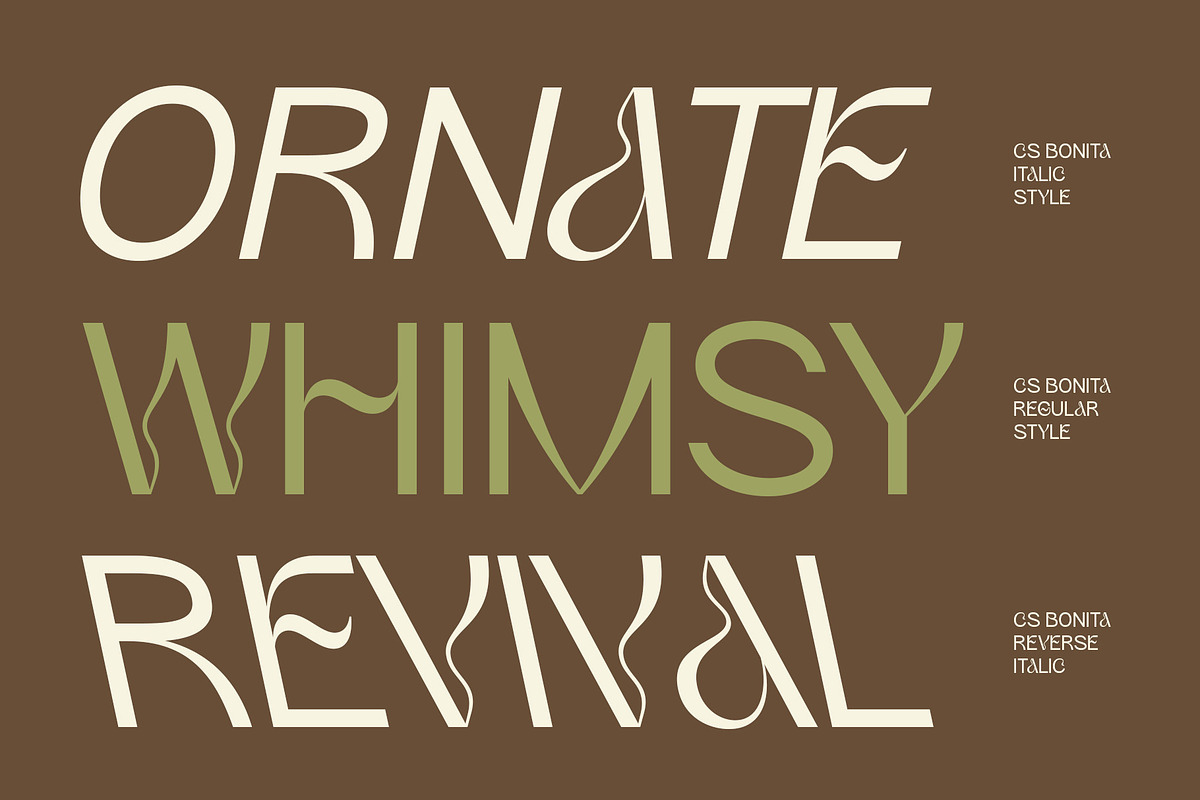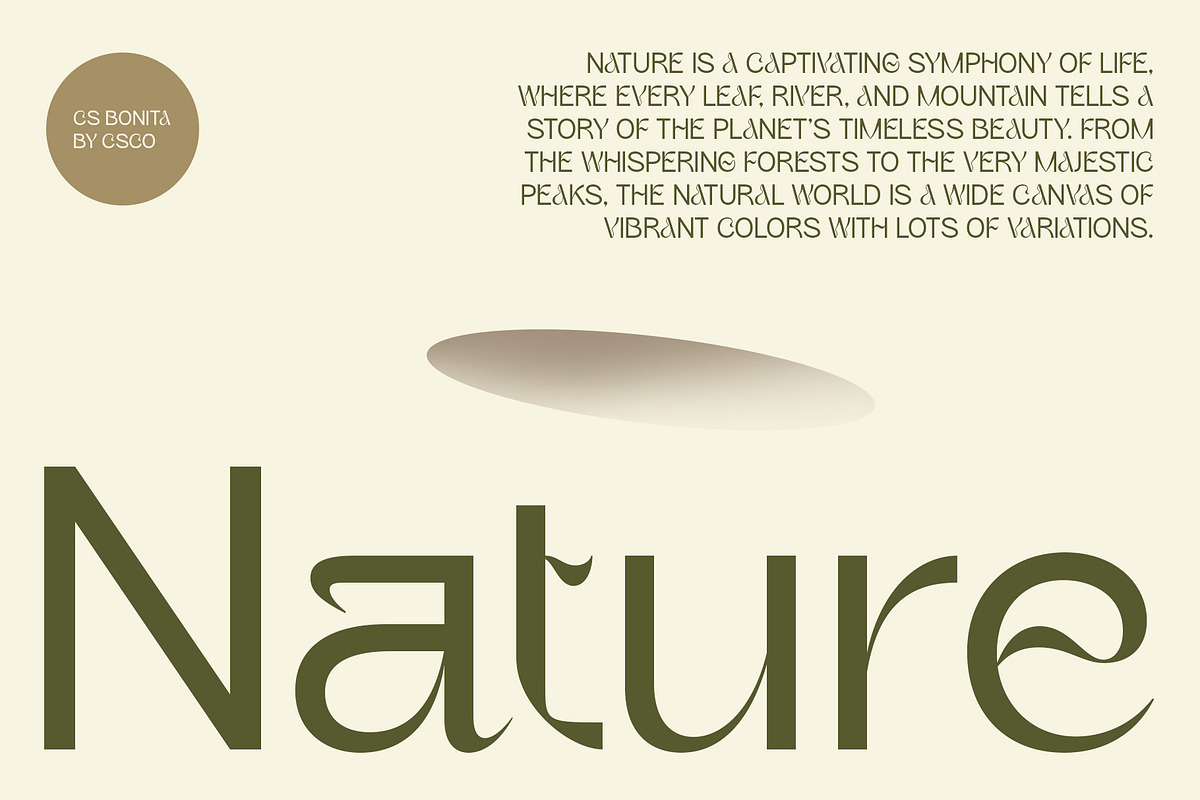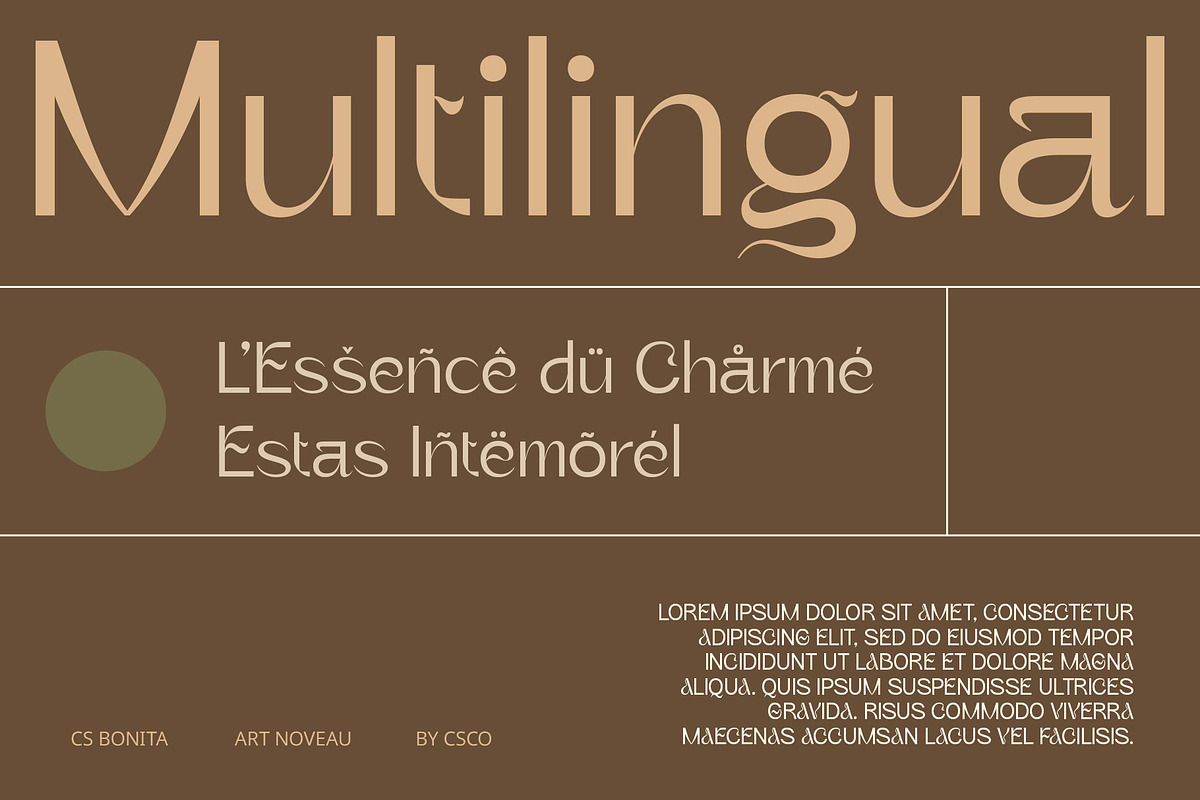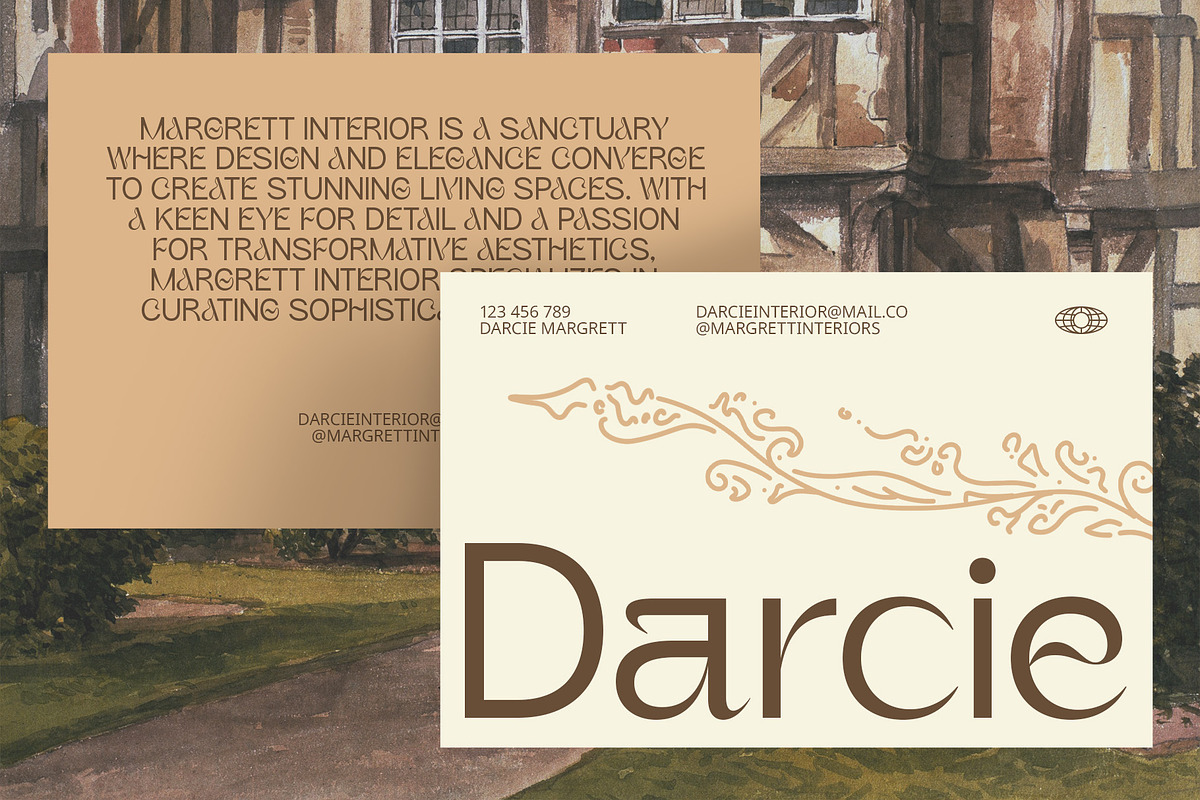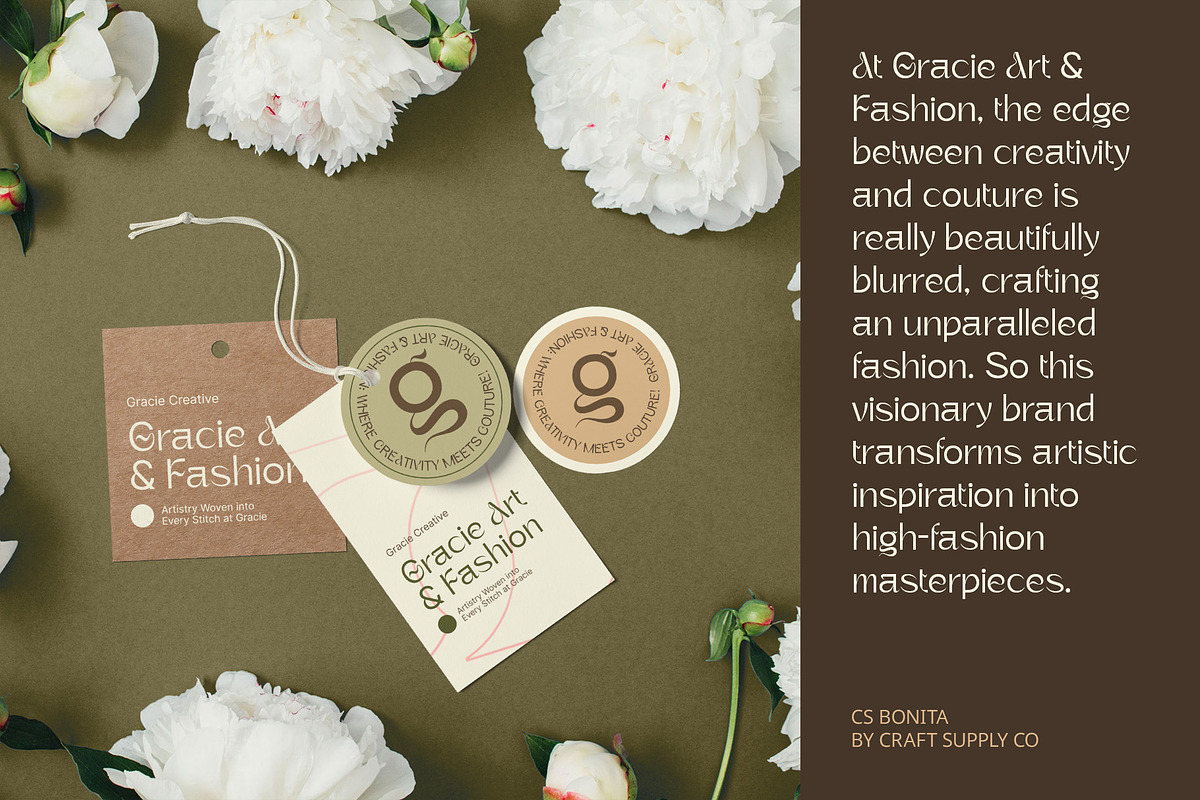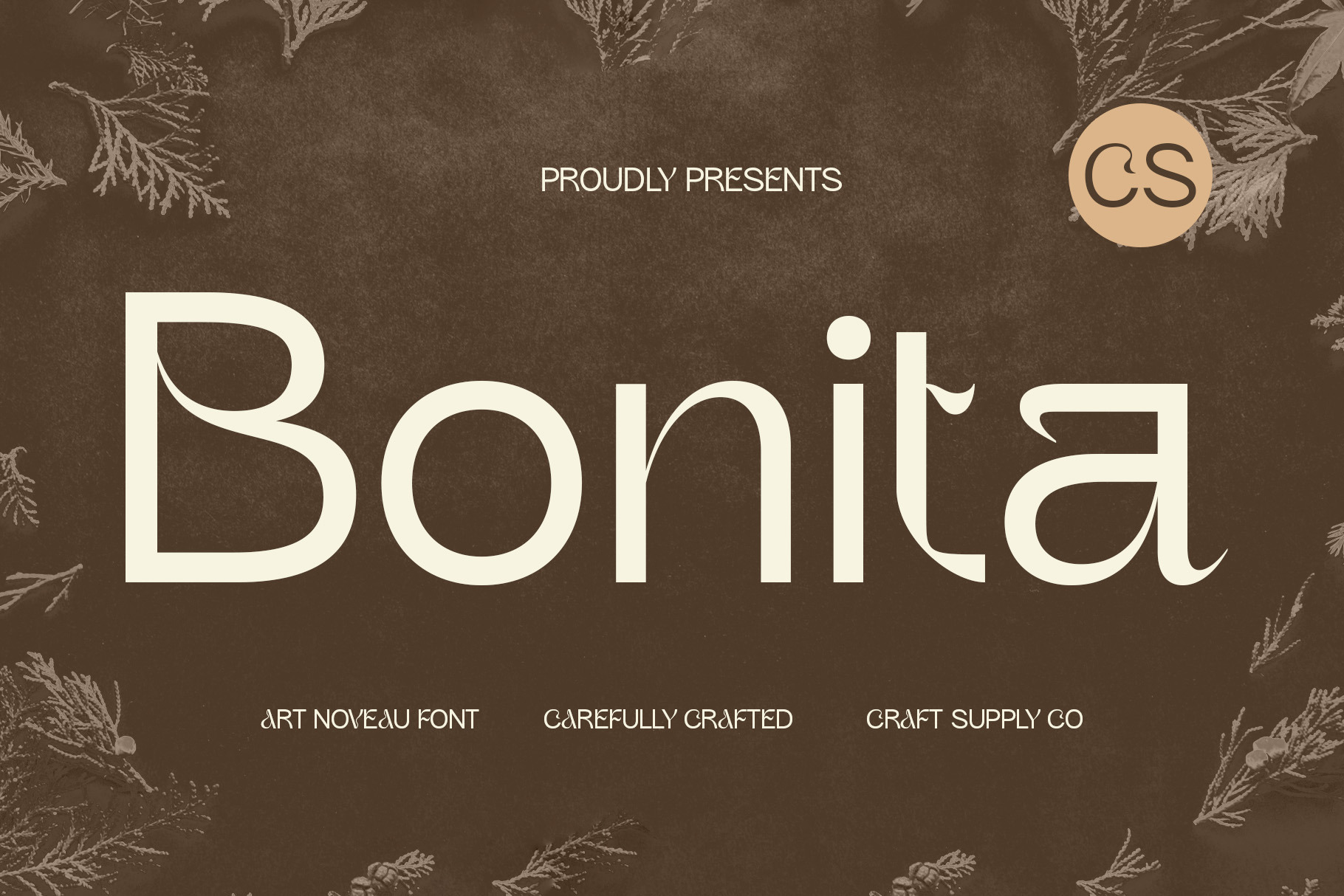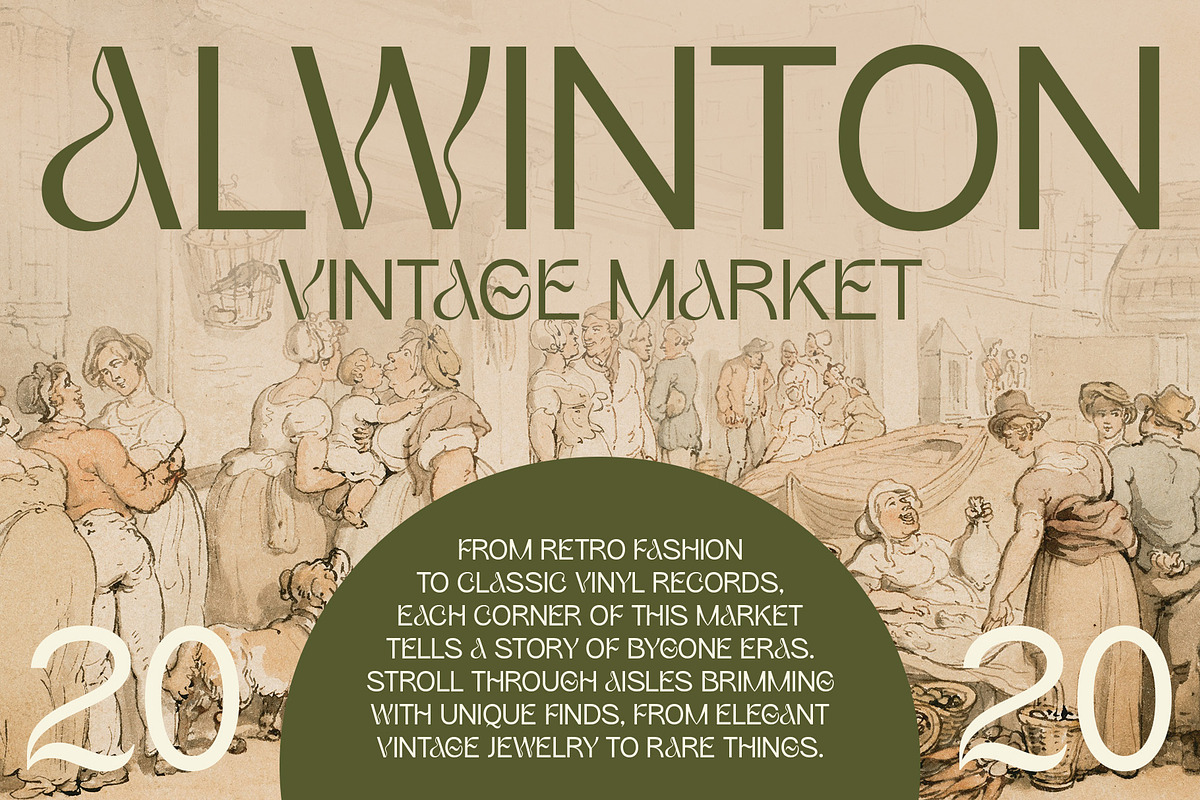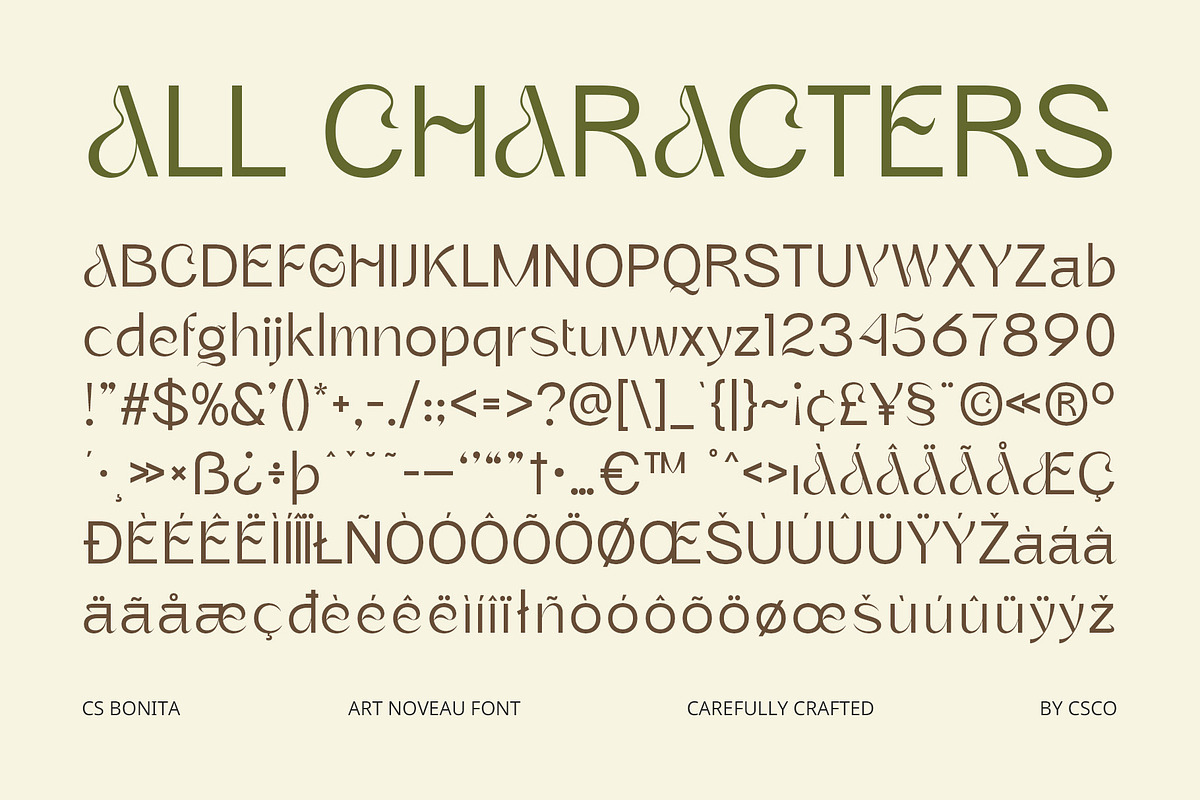
CS Bonita – Art Nouveau Font
CS Bonita – Art Nouveau Font: Contemporary Elegance with Artistic Flair
Modern Sans-Serif with Art Nouveau Influence CS Bonita – Art Nouveau Font seamlessly blends modern sans-serif design with the artistic elements of early 20th-century Art Nouveau. Featuring smooth, curved lines and subtle decorative touches, this font embodies a sophisticated elegance while maintaining a contemporary edge.
Graceful and Luxurious Design Experience the grace of CS Bonita’s design, where minimalist forms meet intricate artistry. The font’s smooth curves and refined details evoke a sense of luxury and sophistication, making it an ideal choice for high-end branding, formal invitations, and editorial projects that demand a classic yet modern aesthetic.
Perfect for Sophisticated Applications CS Bonita excels in adding a touch of elegance to a variety of design applications. Whether for upscale branding, elegant event invitations, or stylish editorial layouts, this font provides a refined and impressive look that balances classic charm with modern sensibility.
Versatile for High-End and Artistic Projects With its blend of contemporary and classic influences, CS Bonita offers versatility for sophisticated and artistic designs. Its unique combination of clean lines and Art Nouveau embellishments ensures that your projects stand out with both grace and impact, adding a distinctive and luxurious touch to any creative endeavor.
- CS Bonita Regular
- CS Bonita Italic
- CS Bonita Reverse Italic